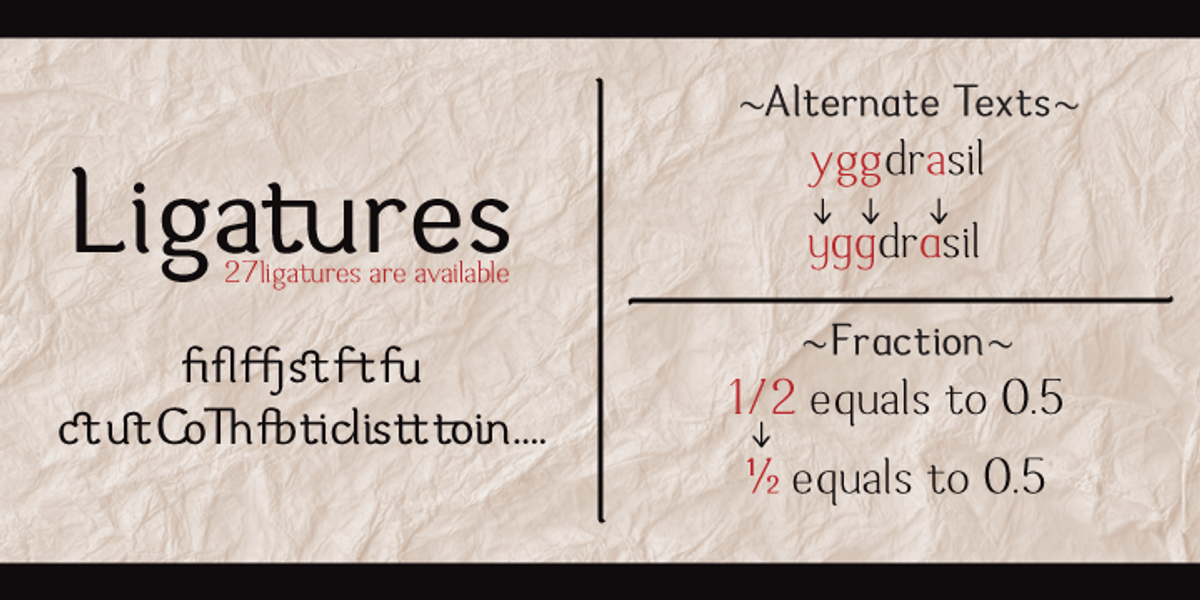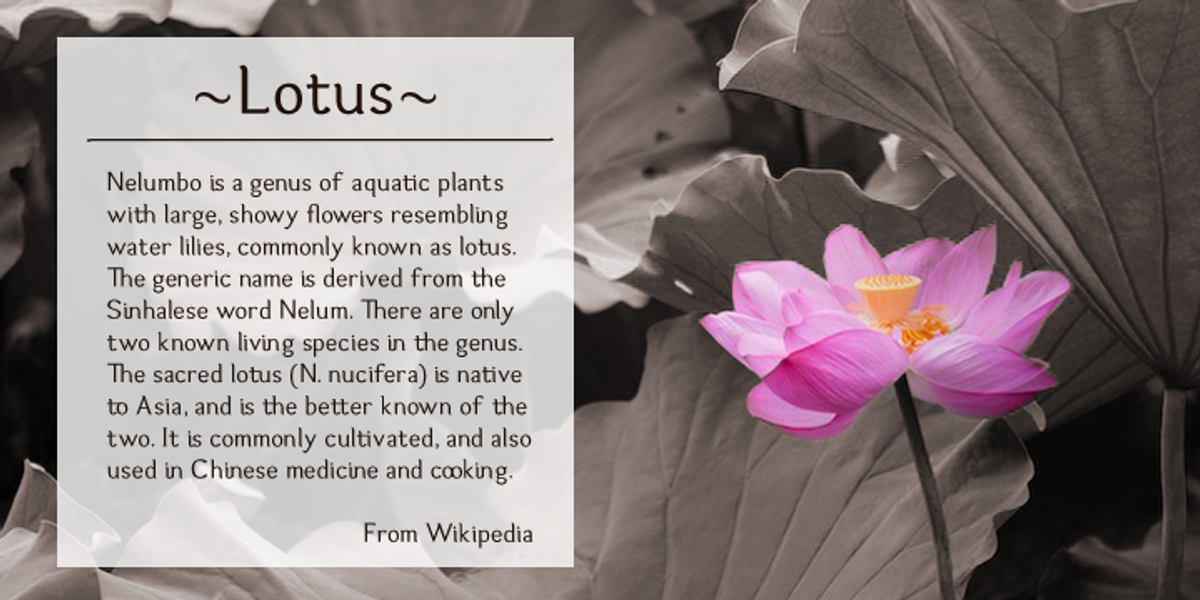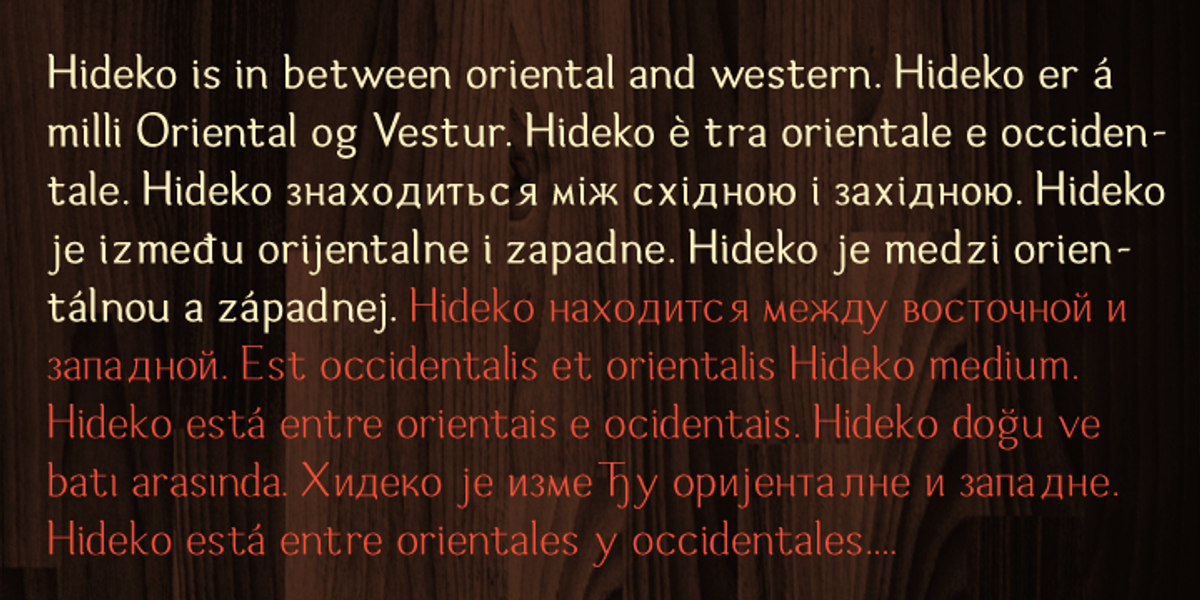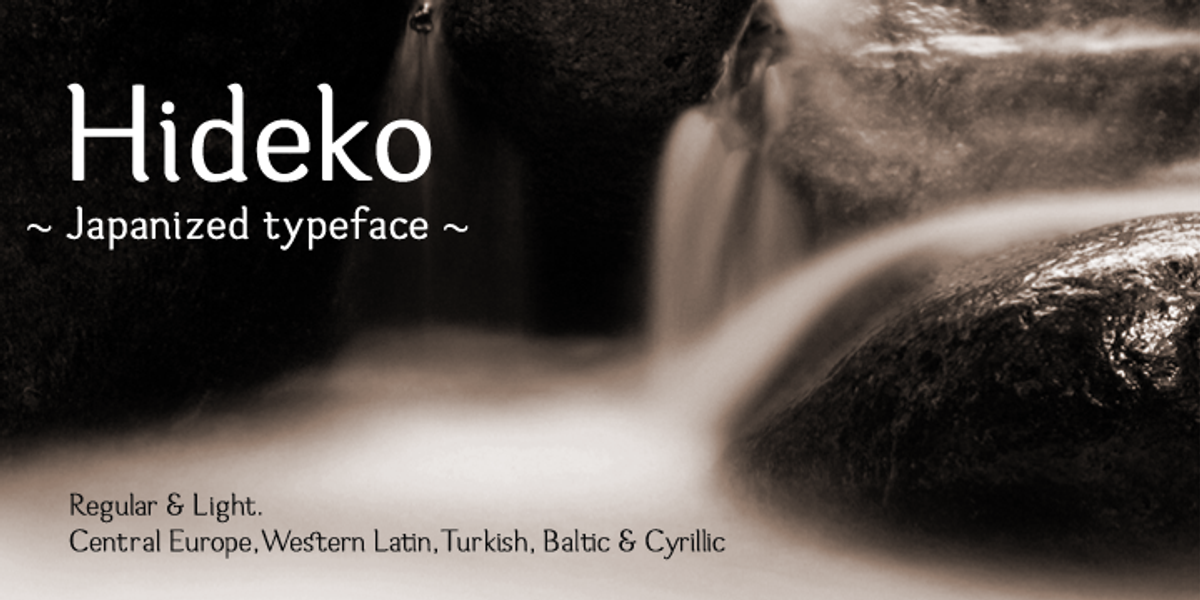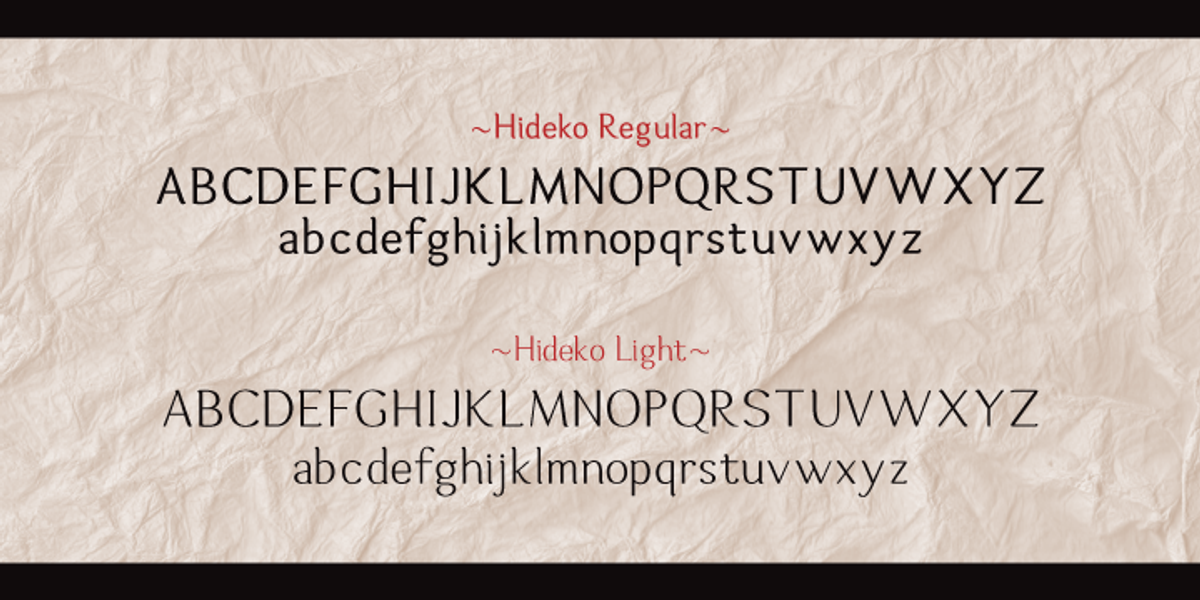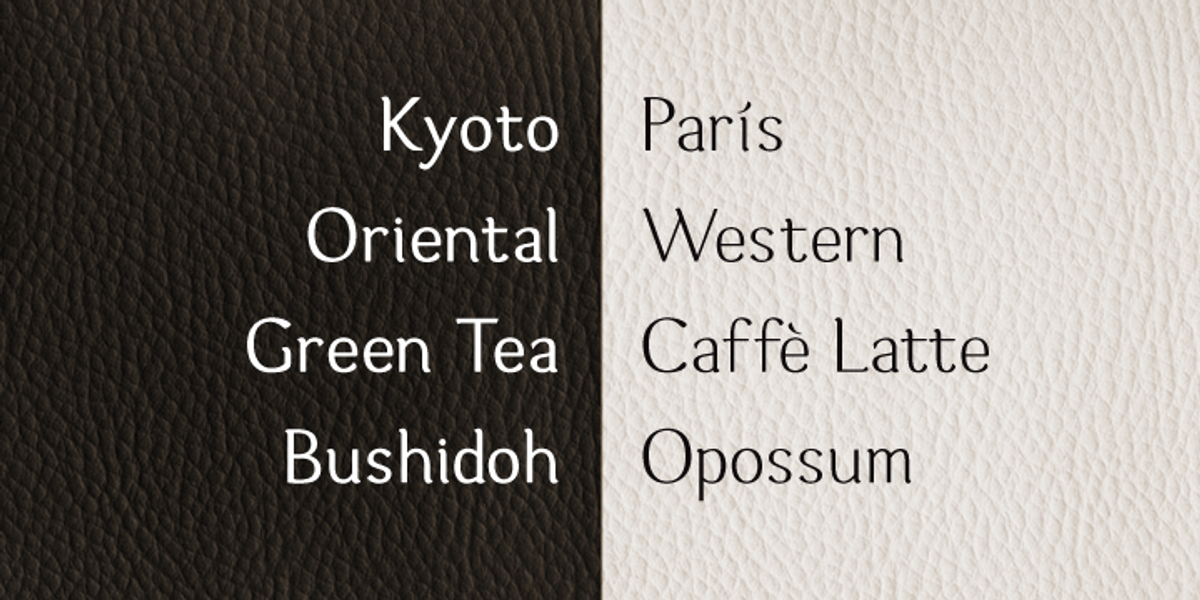
Hideko
Hideko is a unique serif font that draws inspiration from both Japanese calligraphy and Western letterforms. This blend results in a versatile typeface suitable for a wide range of applications, from oriental restaurants to western cafes, posters, and books. The font features various ligatures, stylistic alternates, fractions, and supports multiple languages.